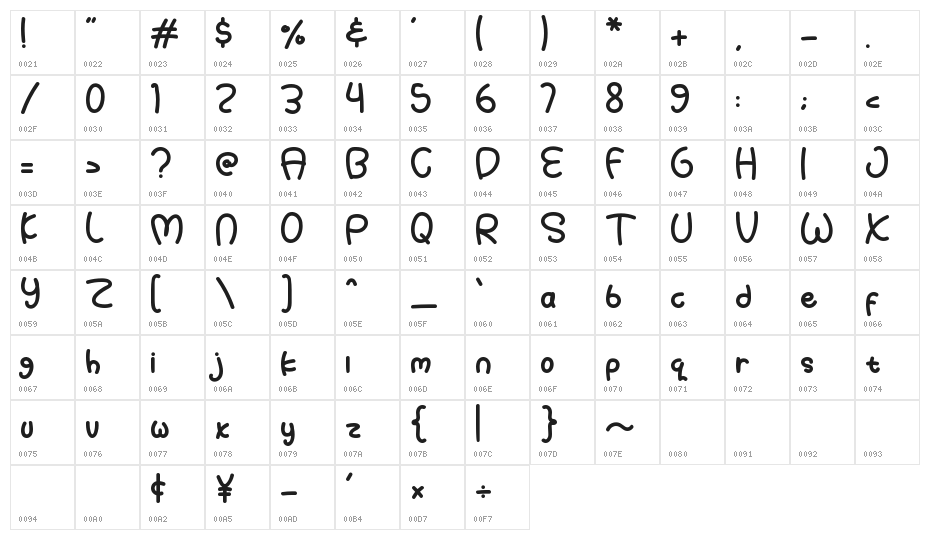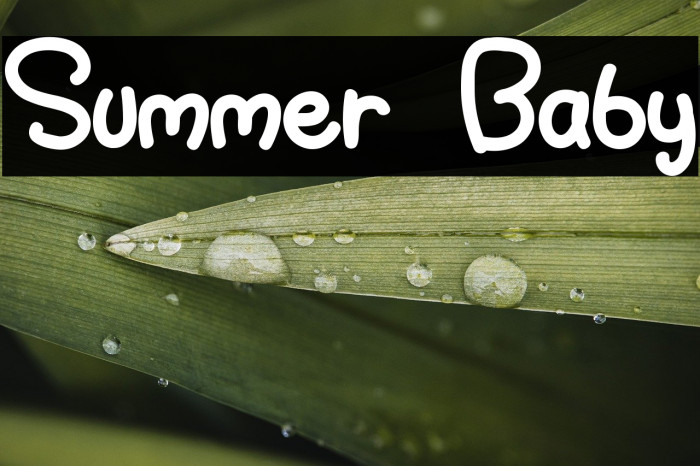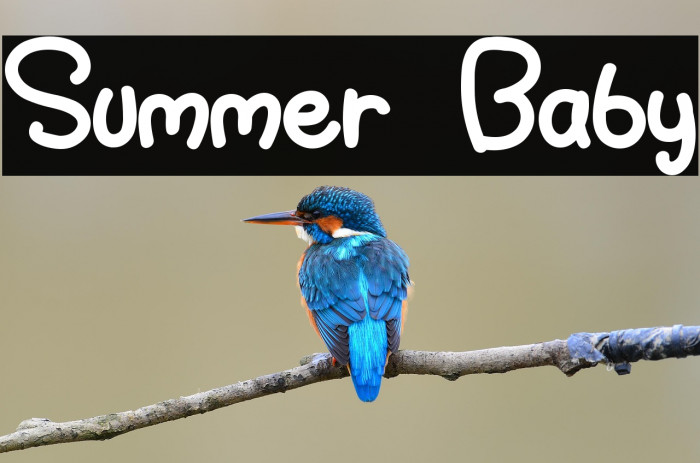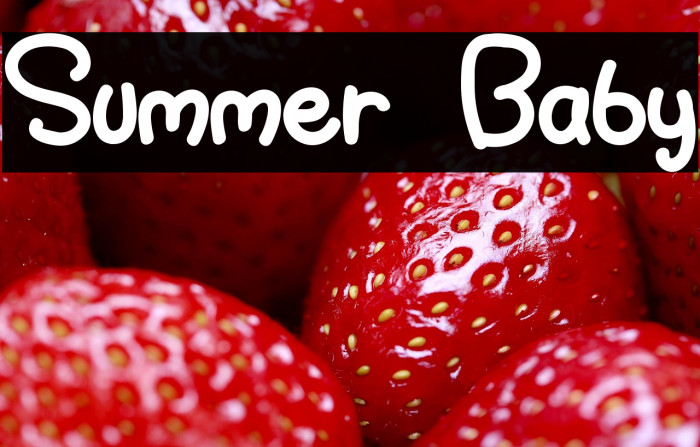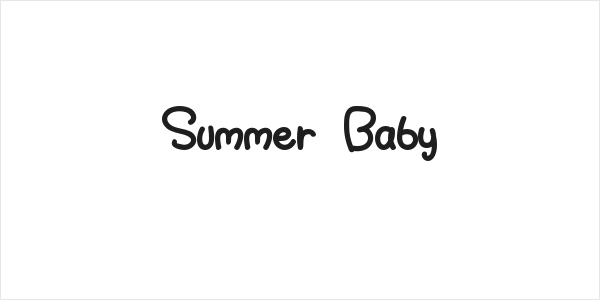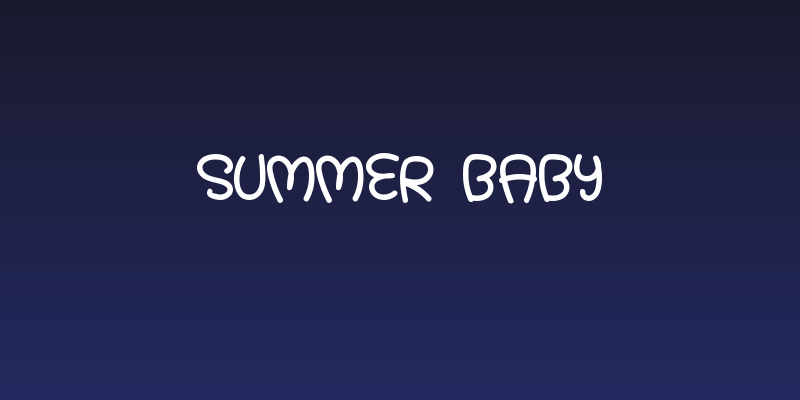
Summer Baby Font
Summer Baby Description
This playful and rounded font exudes a youthful and energetic vibe, characterized by its bold, bubbly letters. The strokes are consistent in thickness, giving it a uniform appearance that enhances readability while maintaining a fun and informal style. The characters are slightly condensed, contributing to a compact look that is perfect for designs that aim to capture attention with a friendly and approachable tone. The font's whimsical nature makes it ideal for projects targeting a younger audience or for those that wish to convey a sense of joy and creativity. Its smooth curves and lack of sharp edges provide a soft and inviting feel, making it suitable for a variety of creative applications.
| Overall Style | Playful, Youthful, Energetic |